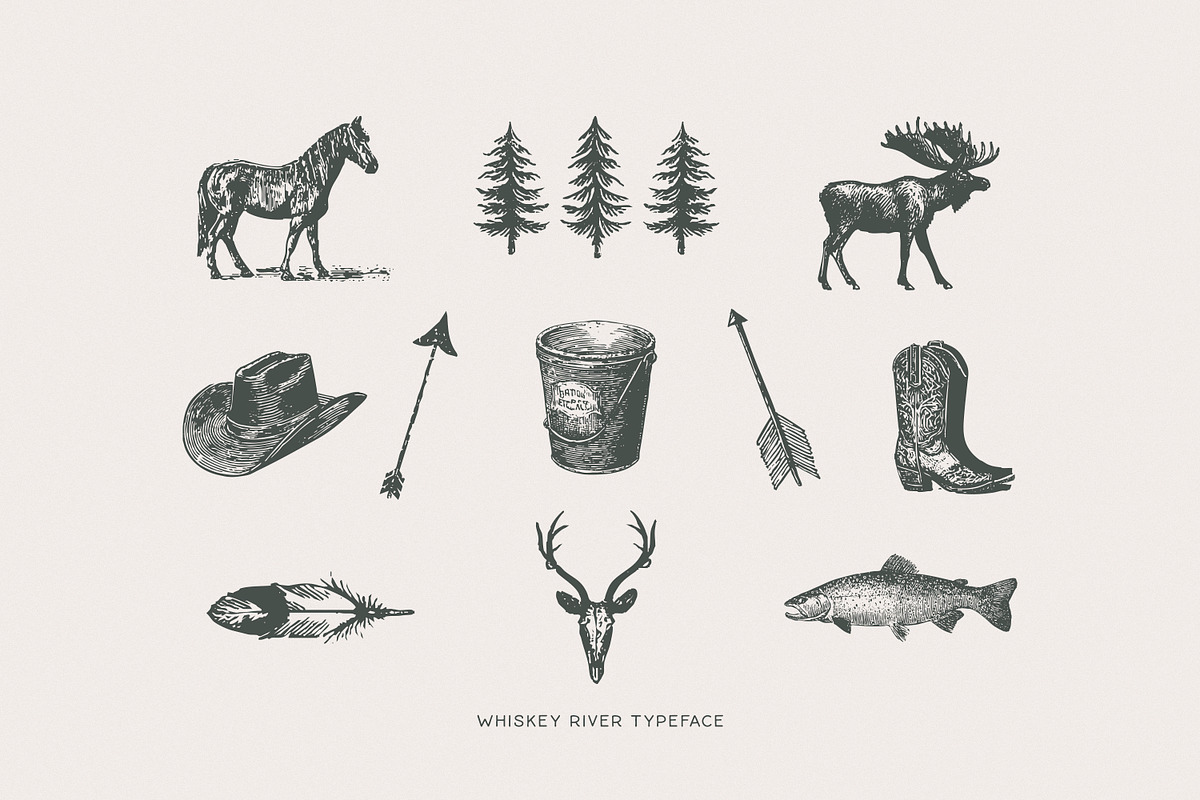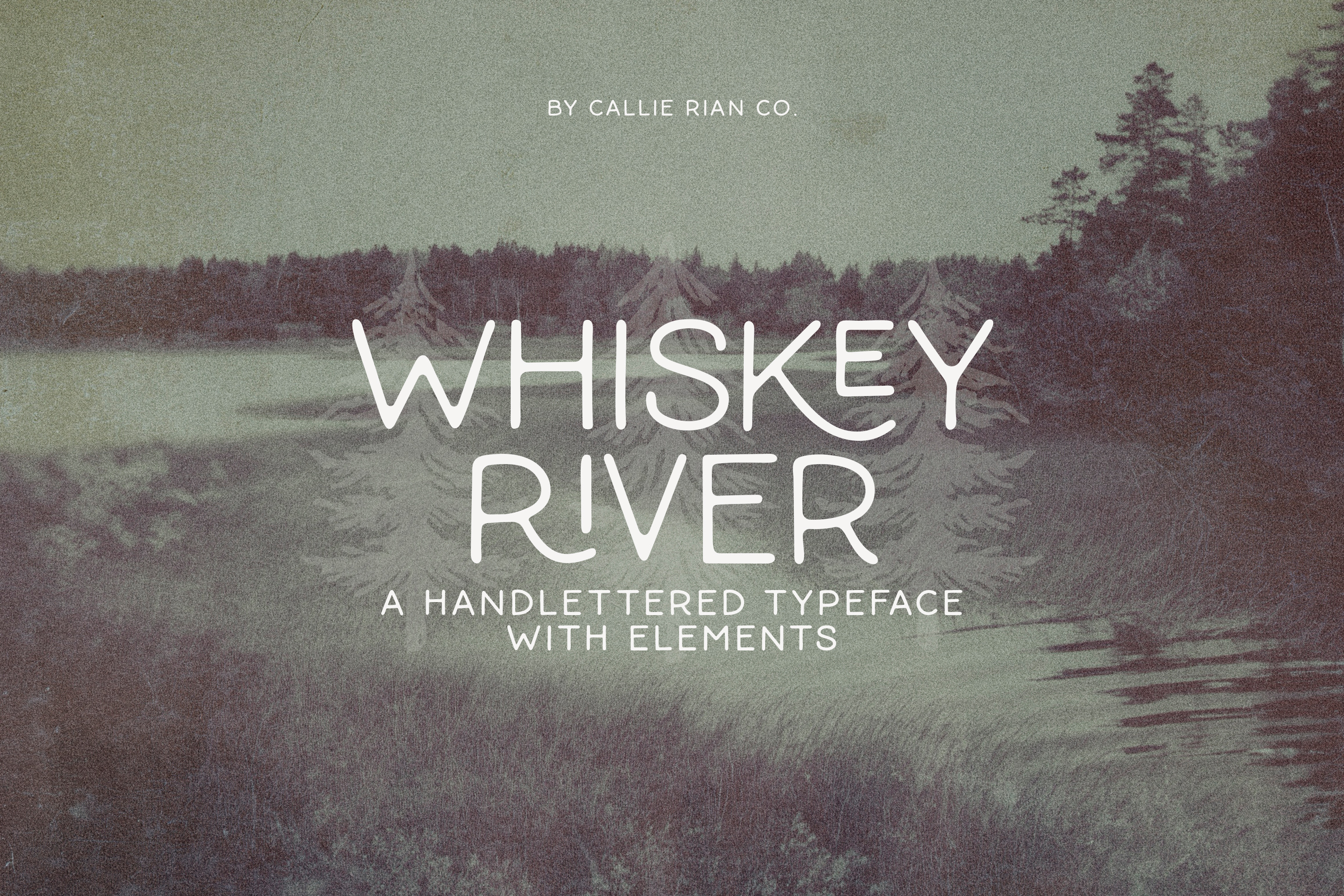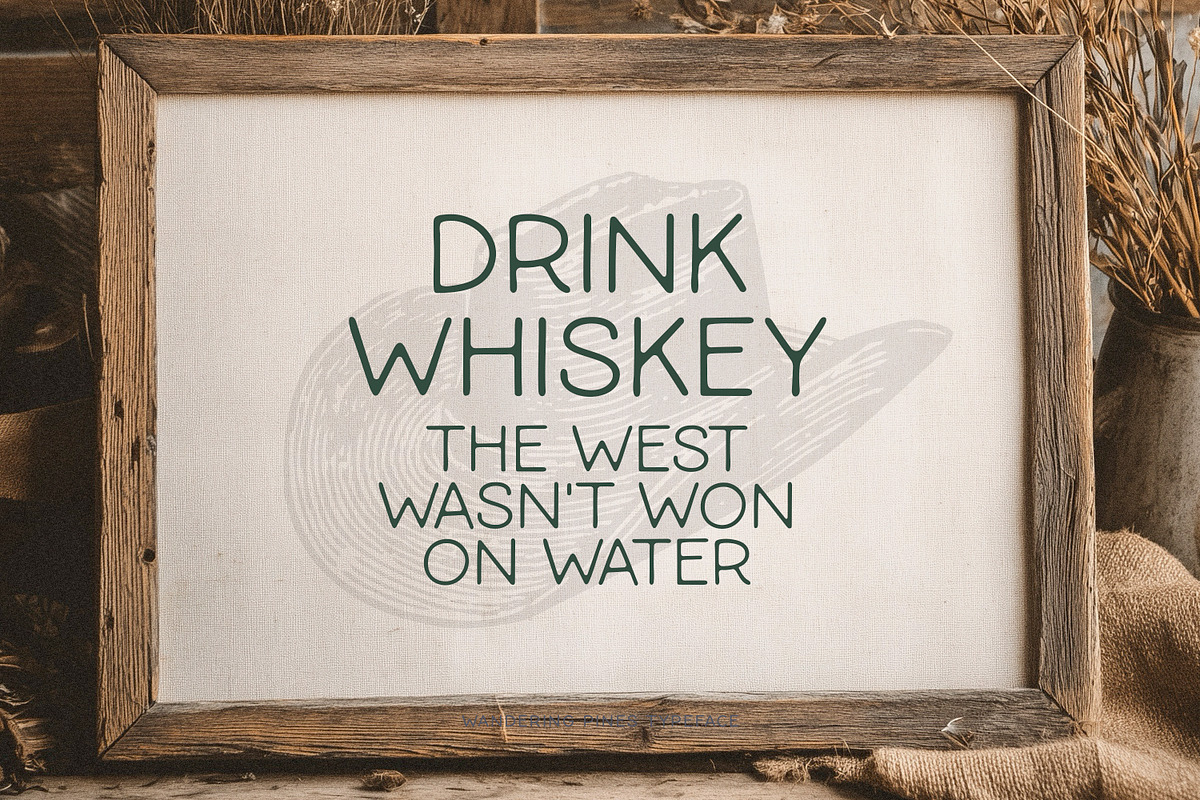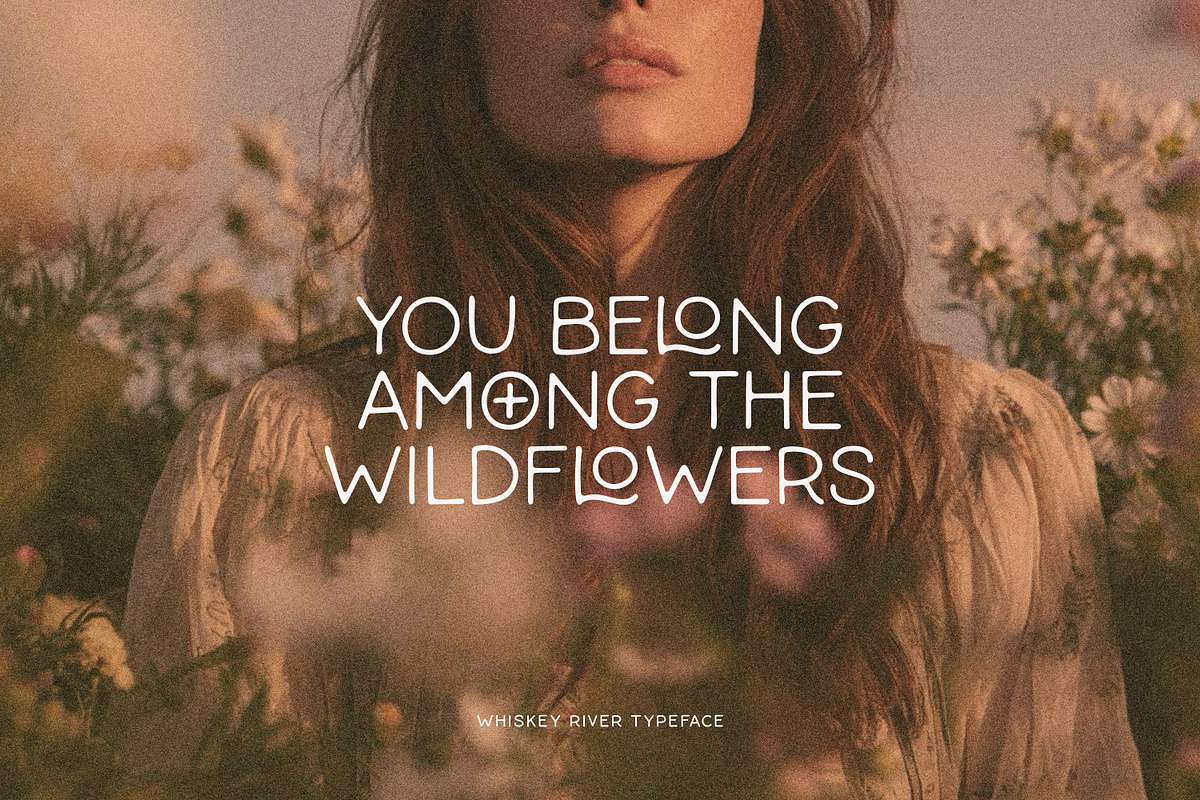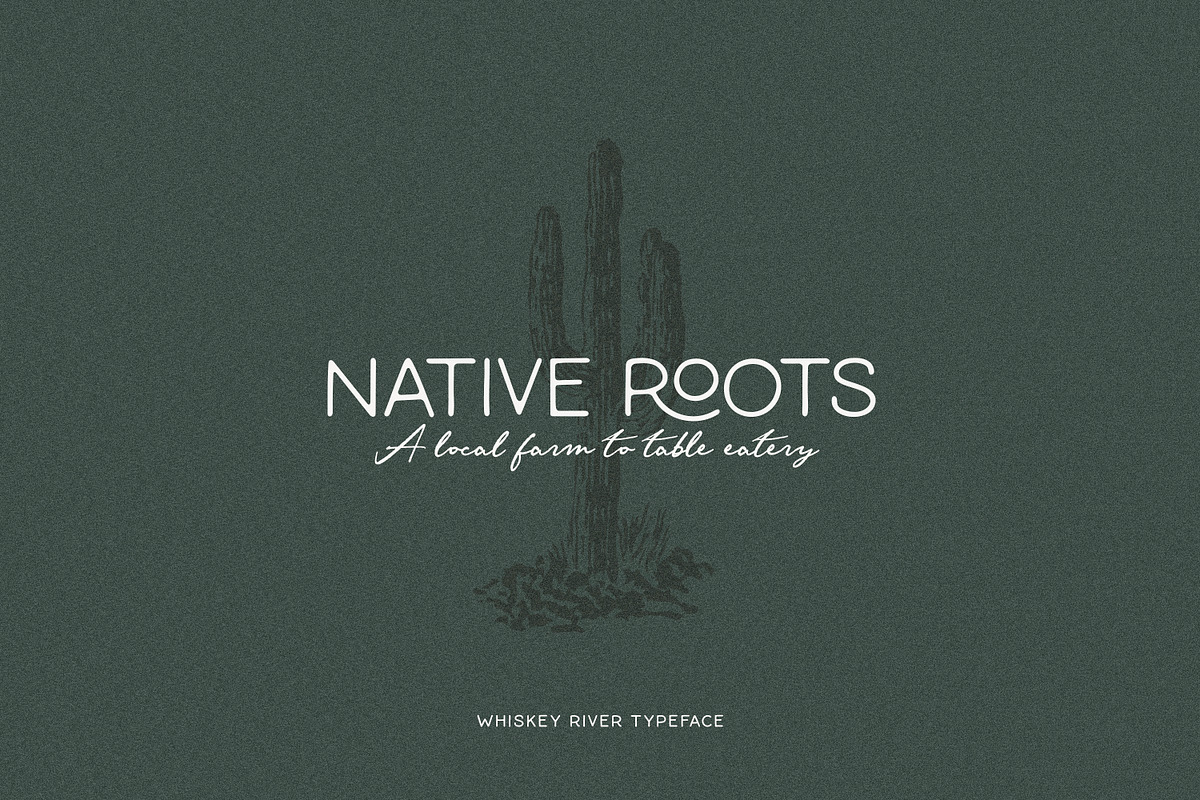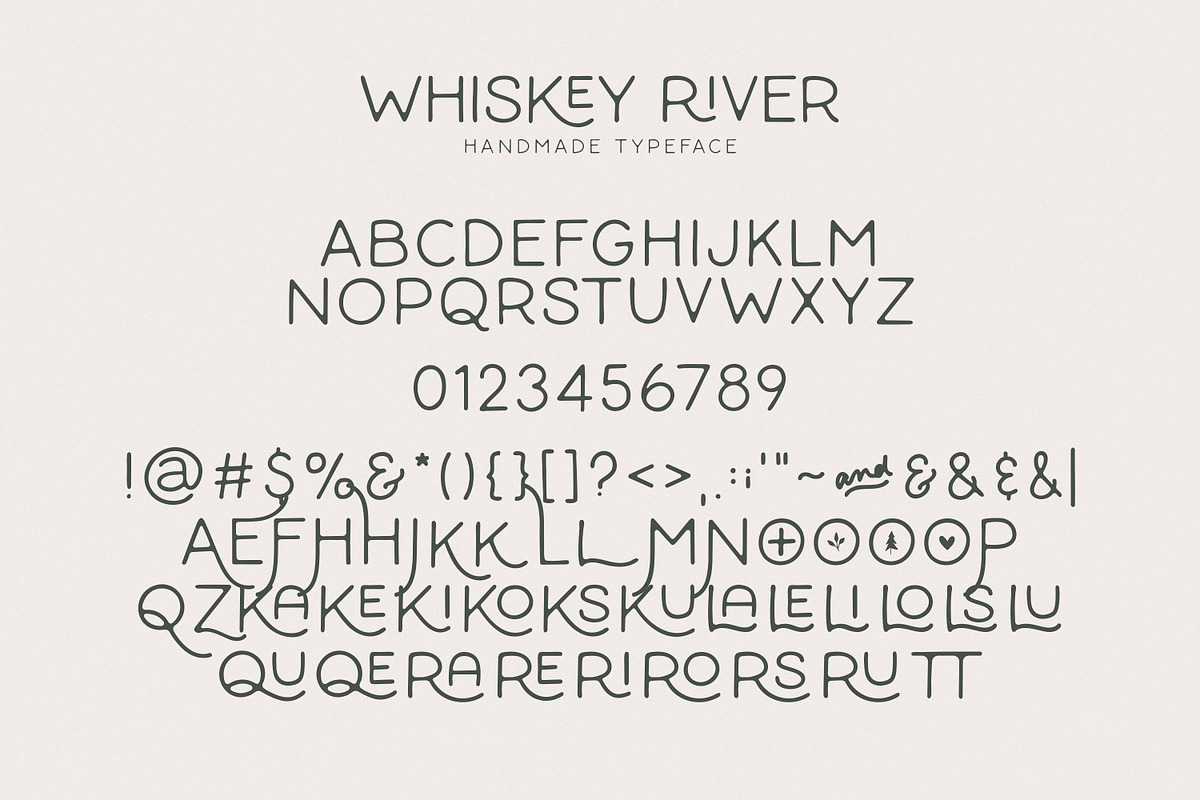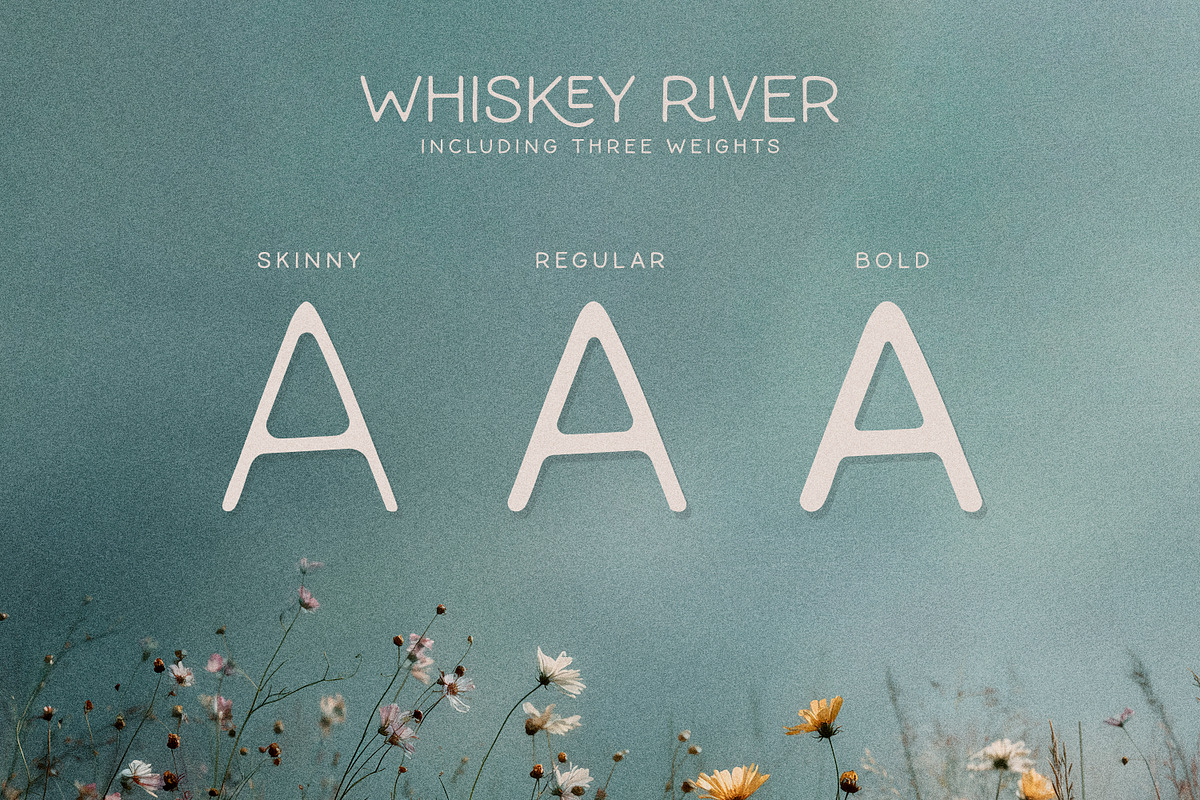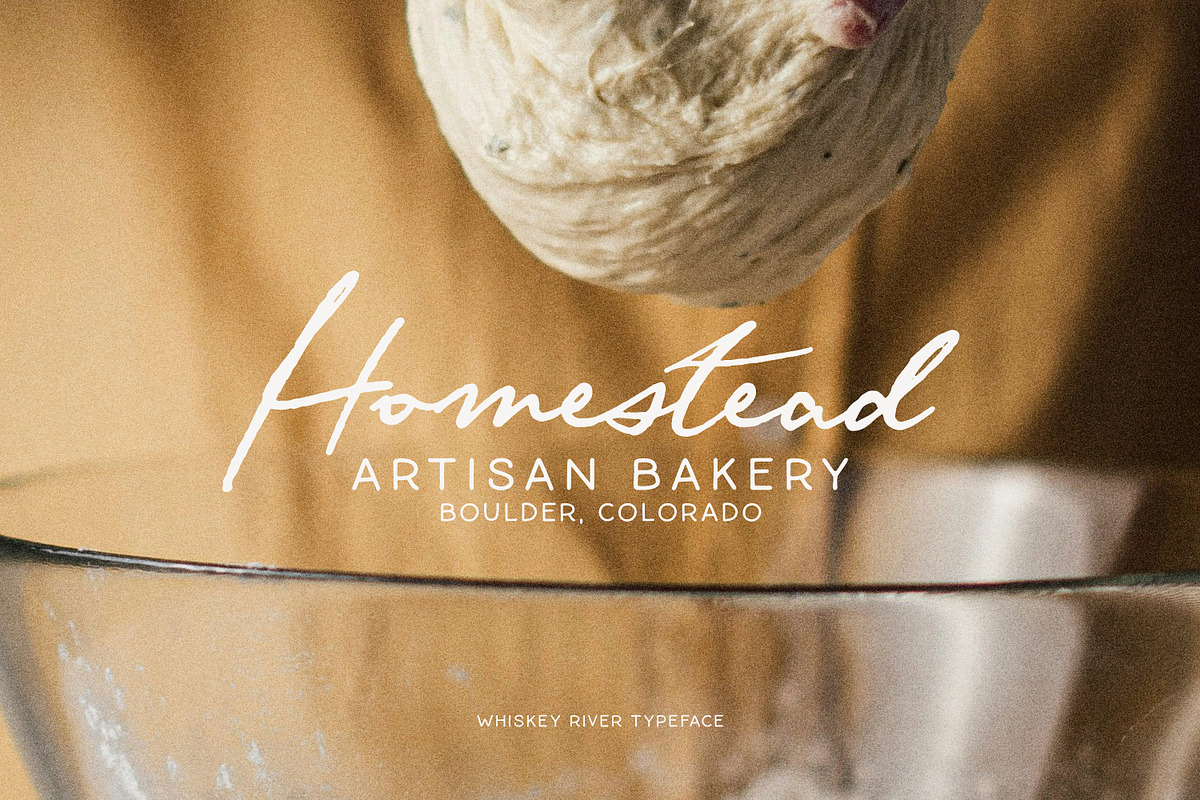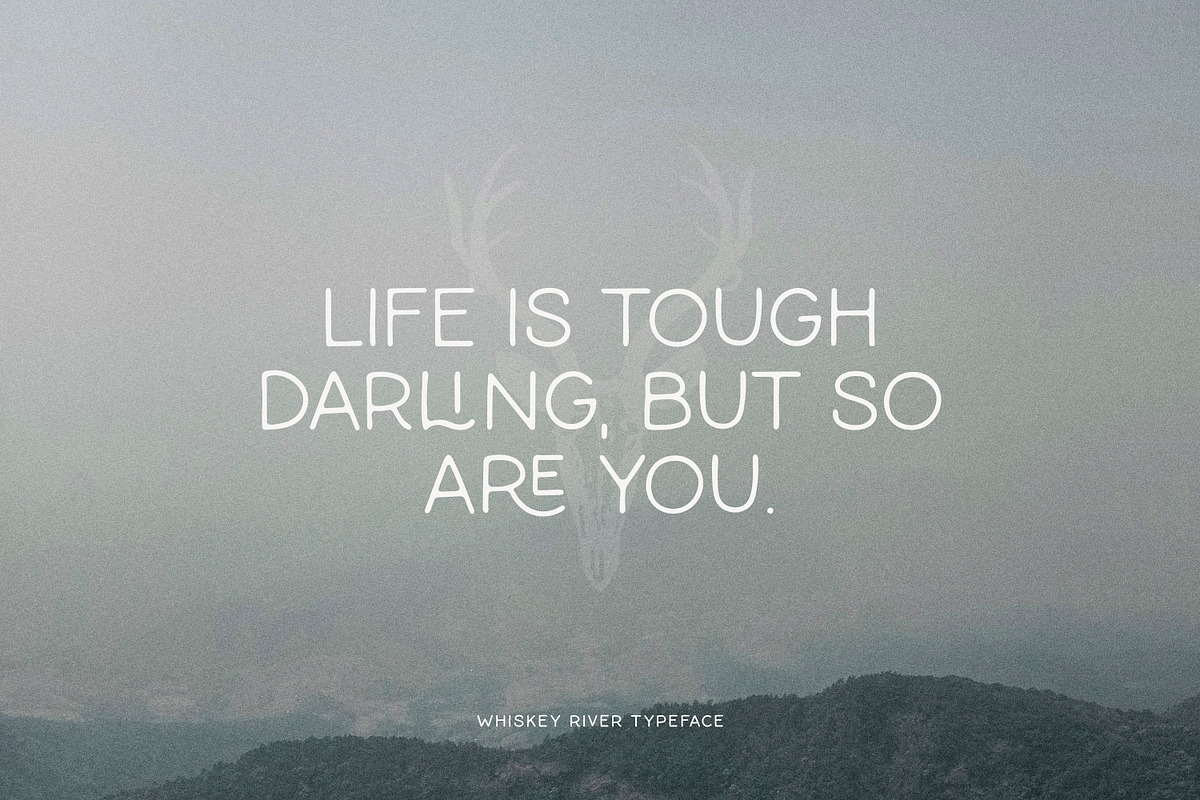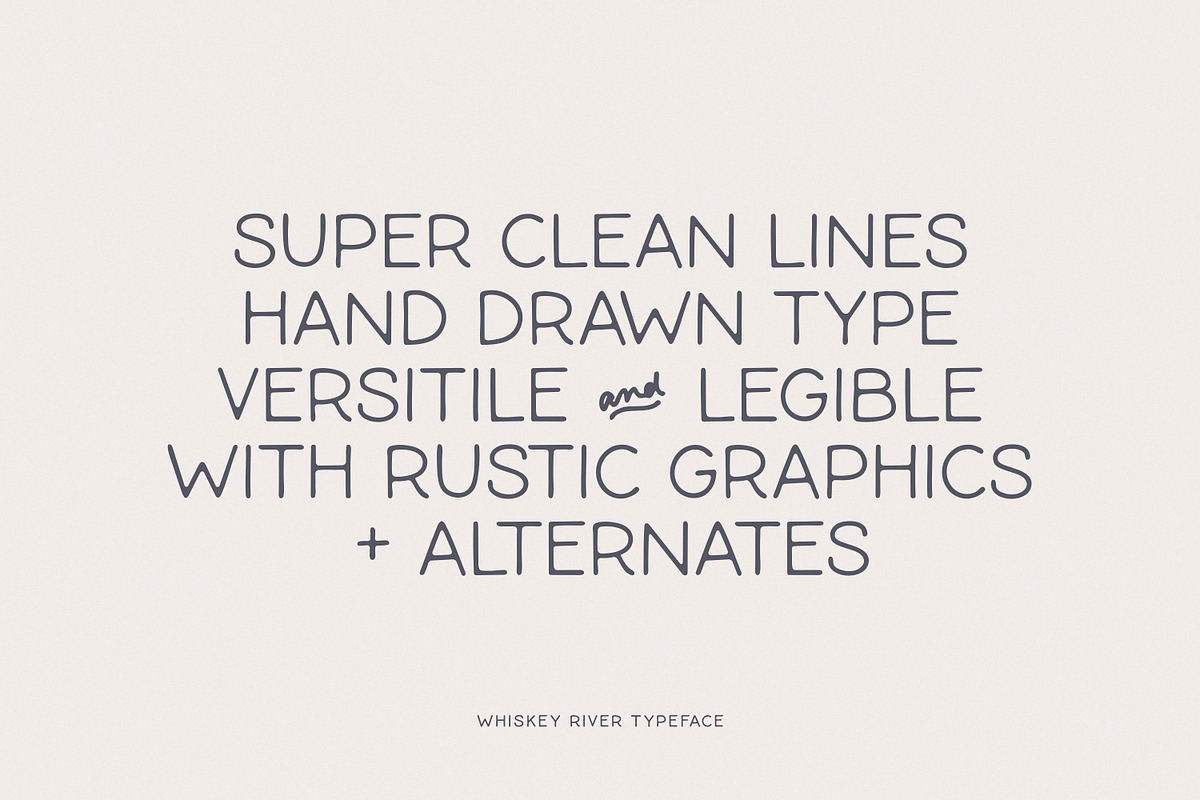
Whiskey River Monoline Typeface
Introducing Whiskey River, a streamlined monoline typeface in three weights, designed for legibility. Whiskey River works beautifully for subtext, easy quotes and rustic projects. It comes with 22 western illustrations, ligatures and alternates.
- Including Alternates & Ligatures